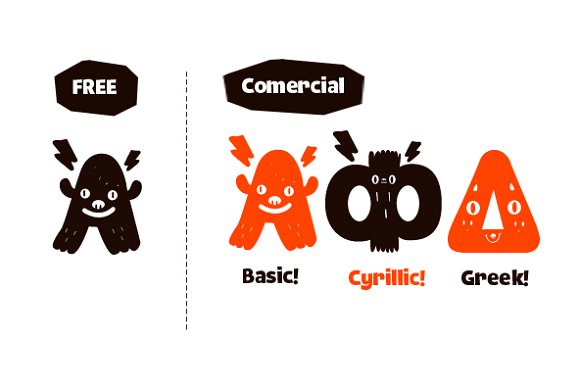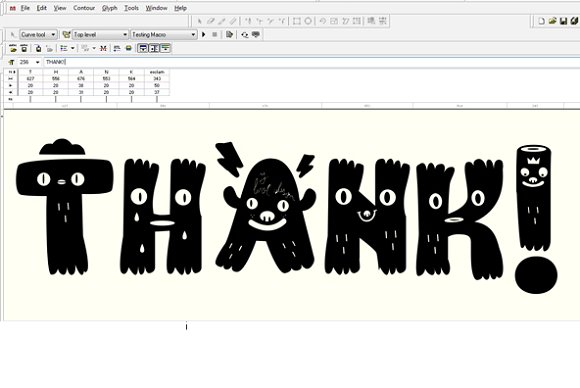
Introducing Guakala Pro Font: The Ultimate Playful Typeface for Designers and Crafters
Are you tired of using the same old fonts in your designs? Look no further! Guakala Pro Font is here to add a touch of fun and playfulness to your projects. This unique font is handcrafted with love, featuring a distinct handmade drawing for each letter. In this article, we’ll dive into the world of Guakala Pro Font, exploring its features, benefits, and uses.
What is Guakala Pro Font?
Guakala Pro Font is a carefully crafted typeface designed to bring a smile to your face. Each letter in this font is a one-of-a-kind, hand-drawn illustration, making it a true standout in the world of typography. The font’s playful nature makes it perfect for designs that require a touch of whimsy, such as:
- Children’s books and educational materials
- Party invitations and event branding
- Crafting and DIY project designs
- Branding and packaging for playful, youthful products
Key Features of Guakala Pro Font
So, what sets Guakala Pro Font apart from other fonts? Here are some of its key features:
- Unique, hand-drawn letters: Each letter in Guakala Pro Font is a distinct, handmade drawing, ensuring that your designs will be truly one-of-a-kind.
- Playful and fun: Guakala Pro Font is designed to bring a touch of playfulness to your designs, making it perfect for projects that require a lighthearted tone.
- High-quality design: The font is carefully crafted with attention to detail, ensuring that it looks great in any design.
Benefits of Using Guakala Pro Font
So, why should you choose Guakala Pro Font for your next project? Here are some benefits of using this unique font:
- Adds a personal touch: Guakala Pro Font’s handmade nature gives your designs a personal, human touch that sets them apart from generic fonts.
- Increases engagement: The playful nature of Guakala Pro Font can help increase engagement and interaction with your audience.
- Versatile: Guakala Pro Font can be used in a variety of design projects, from digital graphics to print materials.
- Supports creative expression: With Guakala Pro Font, you can express your creativity and bring your unique vision to life.
Tips for Using Guakala Pro Font
To get the most out of Guakala Pro Font, here are some tips for using it in your designs:
- Pair with complementary fonts: Combine Guakala Pro Font with other fonts to create a visually appealing contrast.
- Experiment with colors: Guakala Pro Font looks great in a variety of colors, so don’t be afraid to try out different hues and combinations.
- Use it sparingly: Guakala Pro Font’s playful nature makes it perfect for headlines, titles, and accents, but use it sparingly to avoid overwhelming your design.
Guakala Pro Font is a unique and playful typeface that’s perfect for designers and crafters looking to add a touch of whimsy to their projects. With its handmade, hand-drawn letters and high-quality design, Guakala Pro Font is sure to bring a smile to your face and engage your audience. Whether you’re working on a children’s book, party invitation, or social media graphic, Guakala Pro Font is the perfect choice.